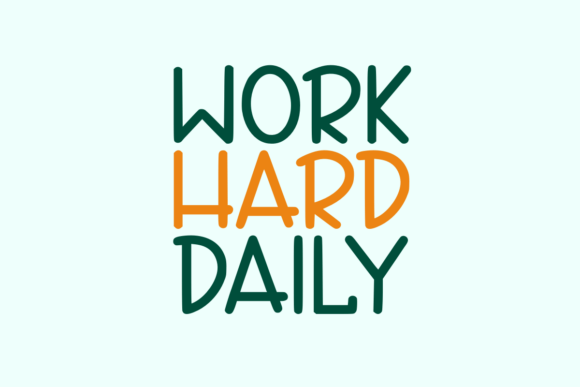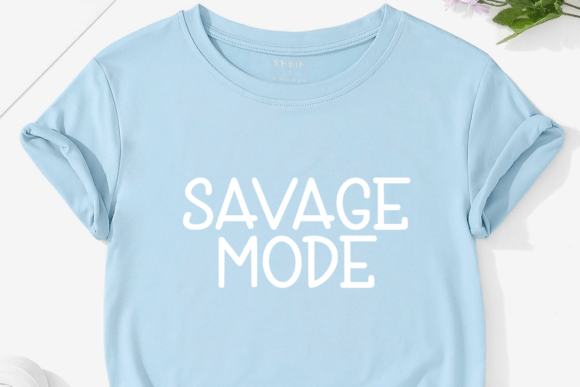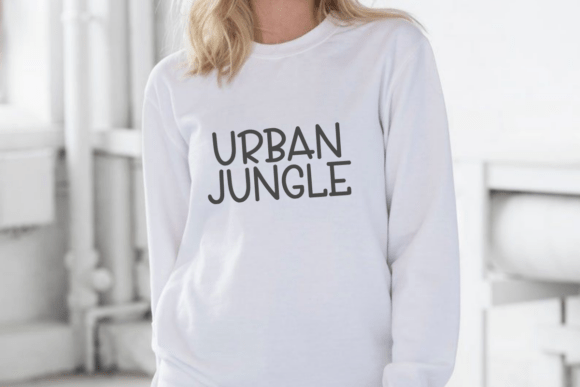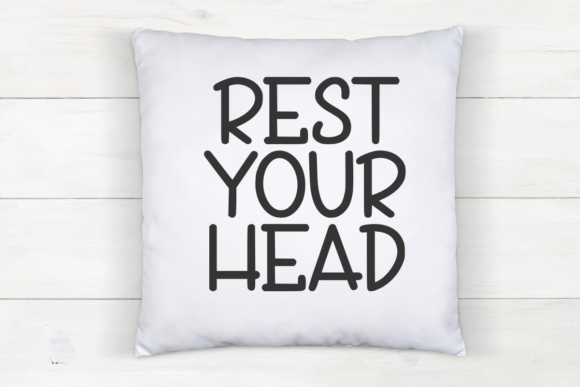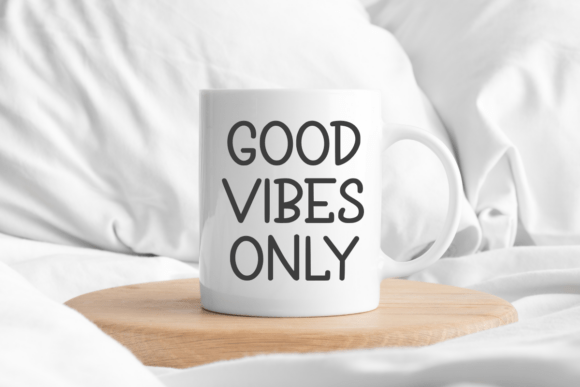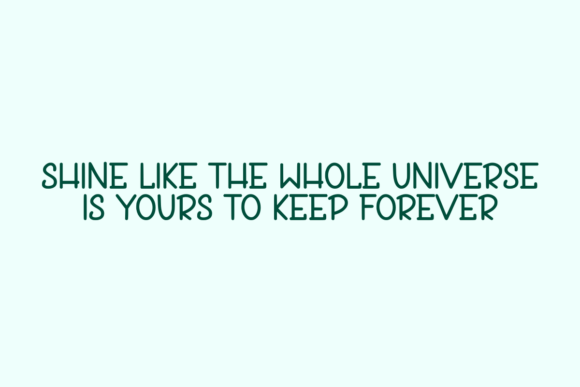
Get Ready to Celebrate with the Birthday Comic Font
Do you remember the feeling of excitement and joy when you were a kid, surrounded by colorful balloons and decorations, waiting for the big day to arrive? As an adult, that same enthusiasm and creativity can be channeled into designing unique and personalized projects for special occasions. One of the key elements that can elevate these designs is the right font.
Enter the Birthday Comic Font, a delightful sans serif handwriting font that exudes warmth and friendliness. This font is designed to add a personal touch to craft projects, planners, stickers, and more, making it a valuable asset for designers who want to create visually appealing and engaging content. With its easy-to-cut features and smooth curves, the Birthday Comic Font is perfect for crafting moms, DIY enthusiasts, and anyone looking to add a playful touch to their designs.
Birthday Comic Font Key Features
- Font Family: Birthday Comic Font is a sans-serif font designed to resemble comic book lettering.
- Unique Characteristics: Features a bold, playful, and cursive-like design, perfect for creating eye-catching headlines and titles.
Birthday Comic Font Review
Overall, I think the Birthday Comic Font is a fun, playful font that’s perfect for adding some whimsy to your designs. ✨ Here are some things that work well:
- It’s super easy to read, even in smaller font sizes.
- The font has a nice, hand-drawn feel that’s perfect for creative projects.
- It’s a great choice for birthday invitations, party decorations, and other celebratory designs.
- The font may not be suitable for formal or professional designs.
- It’s not as versatile as some other fonts, so you may not be able to use it for as many different types of projects.
- The font may not be available in as many languages as some other fonts.
Overall, I think the Birthday Comic Font is a fun and creative choice for designers who want to add some personality to their projects. It’s perfect for birthday and party designs, and it’s easy to use and customize. Just be aware of its limitations, and you’ll be good to go!
The Birthday Comic Font is perfect for creating fun and playful designs for birthday invitations, party decorations, and social media posts.
Alternative Comic Fonts for Designers
Comic Sans MS is a popular comic font designed by Vincent Connare in 1994. It is a friendly and approachable font, ideal for informal and casual designs, such as invitations, social media posts, and children’s materials. It is more playful and less formal compared to Birthday Comic Font.
Great Vibes is a modern comic font designed by Javier Lopez. It is a versatile font suitable for various design projects, including advertisements, magazines, and packaging. Great Vibes is more elegant and refined compared to Birthday Comic Font, making it a great choice for designs that require a touch of sophistication.
Pacifico is a beautiful and elegant comic font designed by Eduardo Recife. It is a great choice for designs that require a sense of relaxation and calmness, such as beach-themed designs, wellness materials, and travel brochures. Pacifico is more refined and less playful compared to Birthday Comic Font.
Cream Soda is a modern comic font designed by Font Diner. It is a fun and energetic font, ideal for designs that require a playful and youthful vibe, such as posters, flyers, and social media graphics. Cream Soda is more vibrant and energetic compared to Birthday Comic Font, making it a great choice for designs that need to grab attention.
The Birthday Comic Font supports a wide range of languages, including Latin, Cyrillic, and Greek scripts. It also includes a comprehensive set of characters, including punctuation, symbols, and special characters. However, the font may not support all languages or characters, so it’s essential to check the font’s documentation or the font creator’s website for more information.